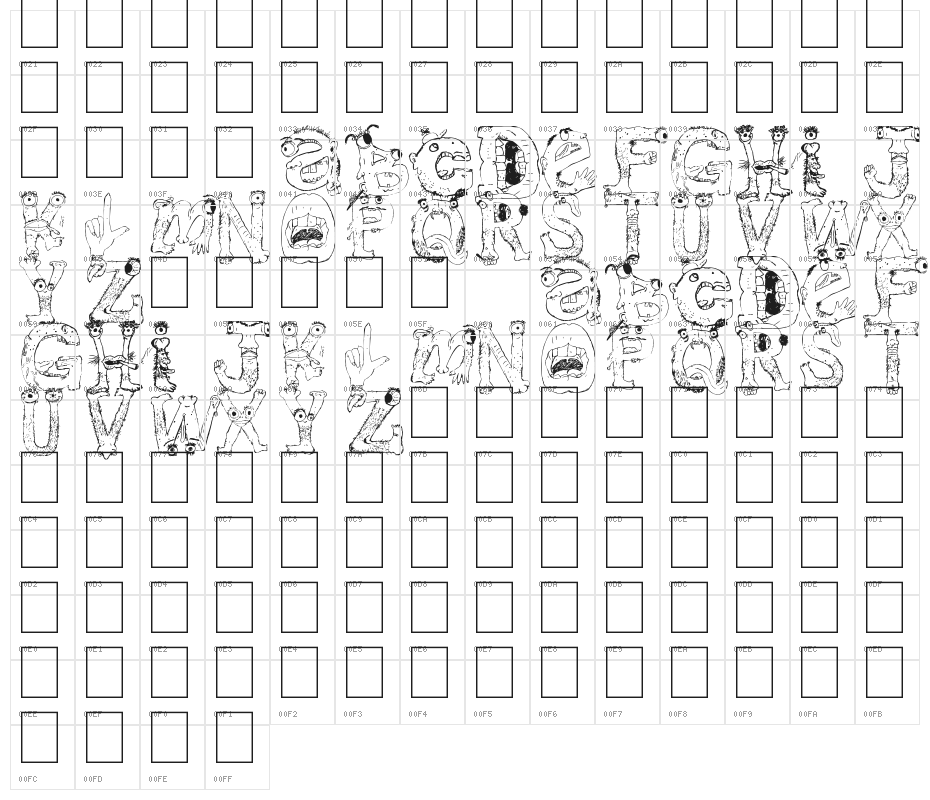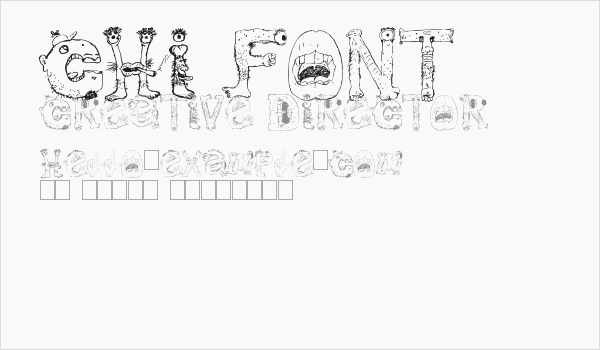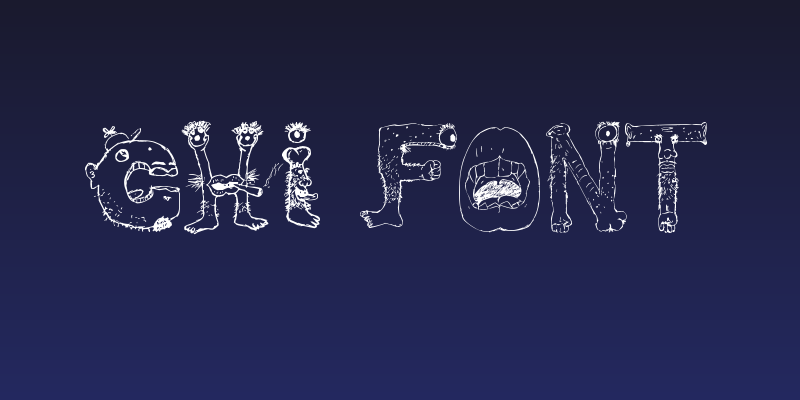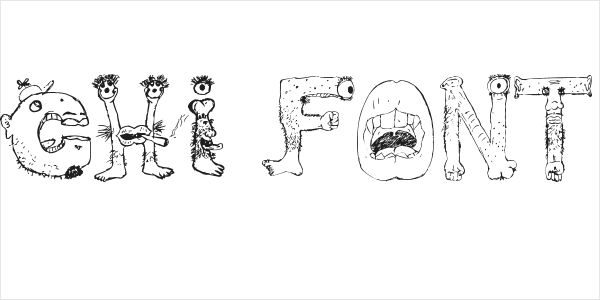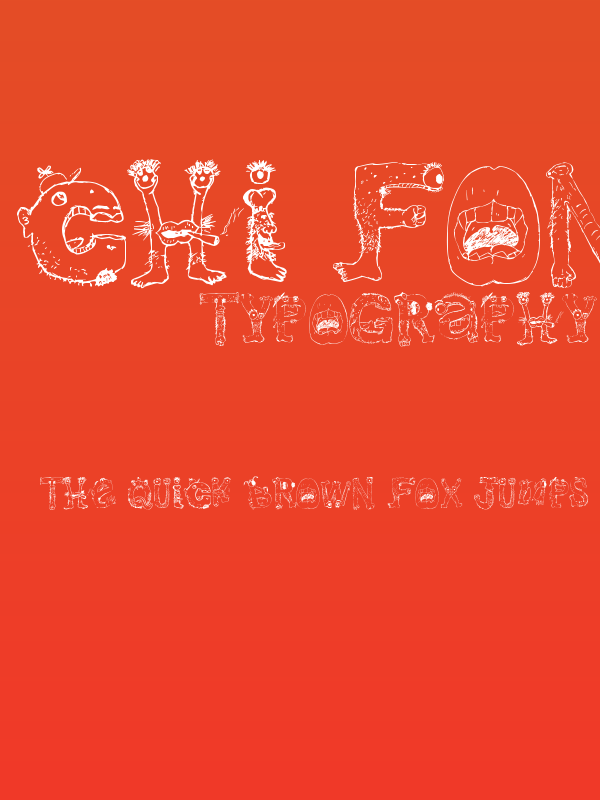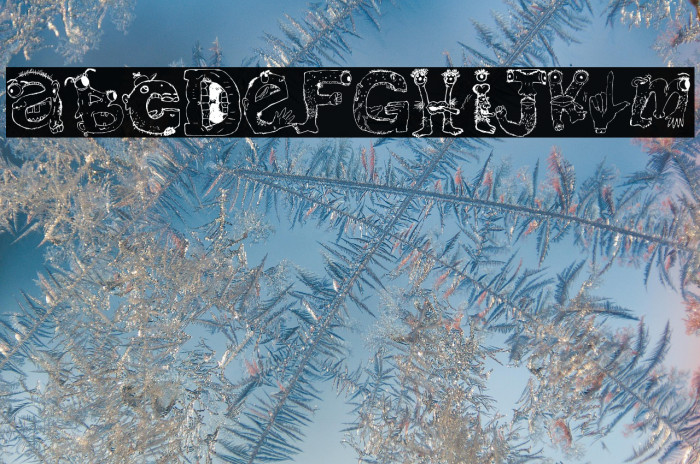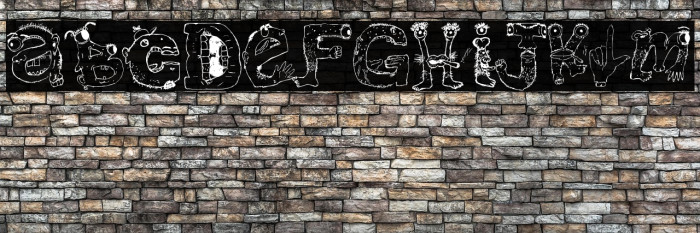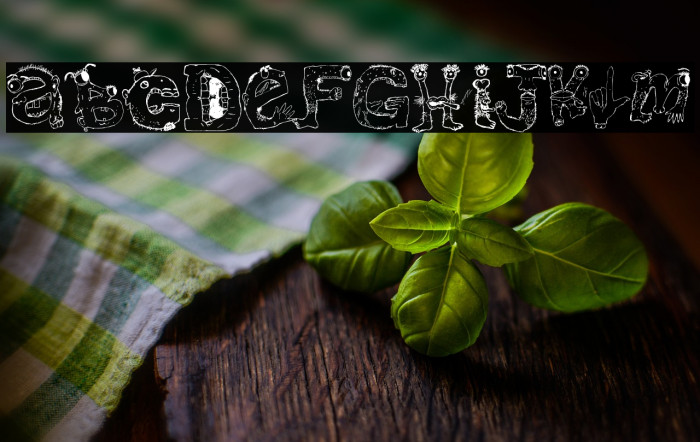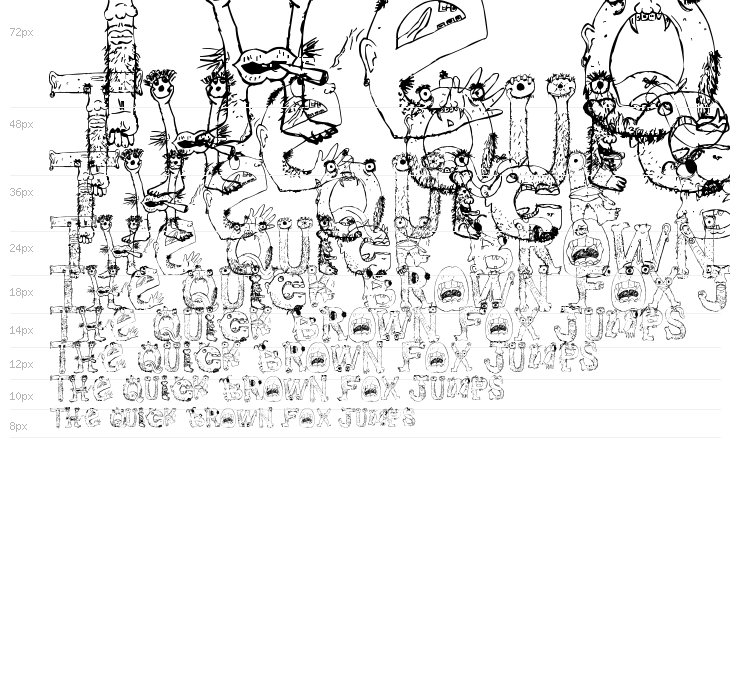
Chi font Font
Chi font Description
This playful and whimsical font features characters that are creatively designed with quirky and humorous elements. Each letter is adorned with cartoon-like features, giving it a lively and animated appearance. The font is highly decorative, with each character incorporating unique illustrations that add personality and charm. The overall design is imaginative and fun, making it perfect for projects that require a touch of humor and creativity. The font's style is consistent across uppercase and lowercase letters, maintaining a cohesive and engaging look.
| Use Case | Logos, Headlines, Posters |
| Proposed Projects | Ideal for children's books, playful branding, comic strips, and creative posters. |